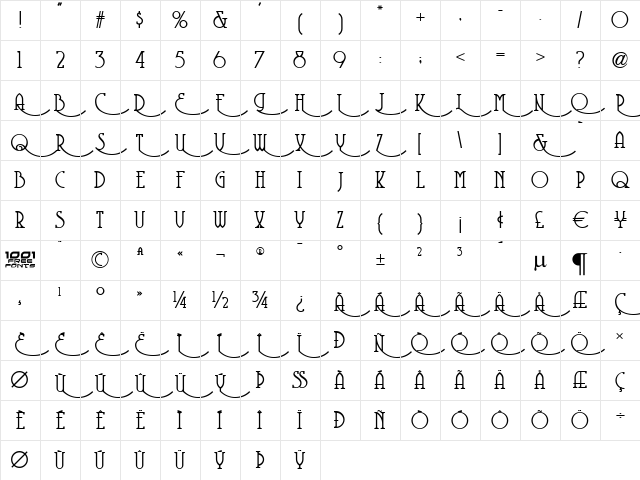
Coventry Garden NF Regular
Foundry: Nick's Fonts
Designer: Nick Curtis
Design Context for Coventry Garden NF
Coventry Garden NF is a composed and adaptable typeface that performs quietly and consistently across a wide range of design contexts.